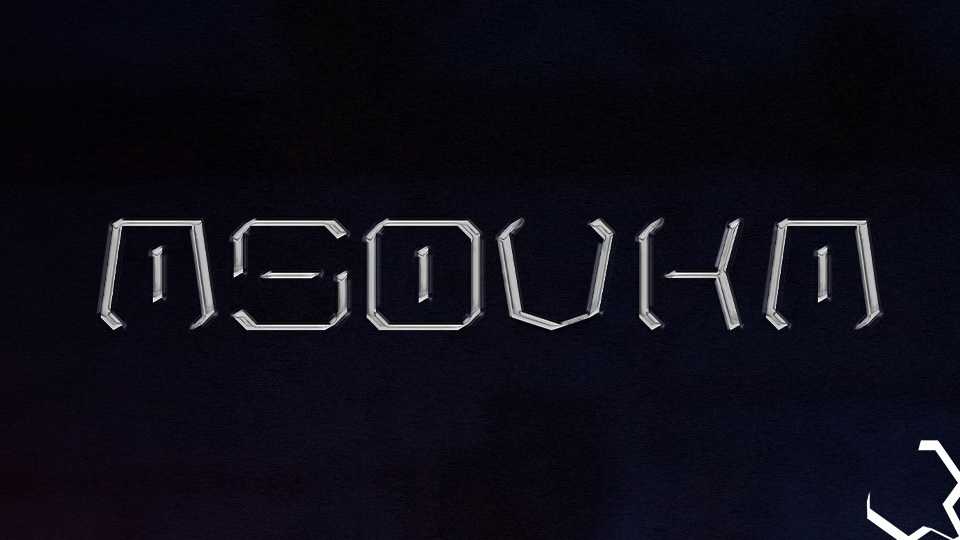
Download Asovka font, a block display typeface created with the same width of letters. Asovka is perfect for poster designs or cover artworks.
Designer: Luis H. J. Rapp